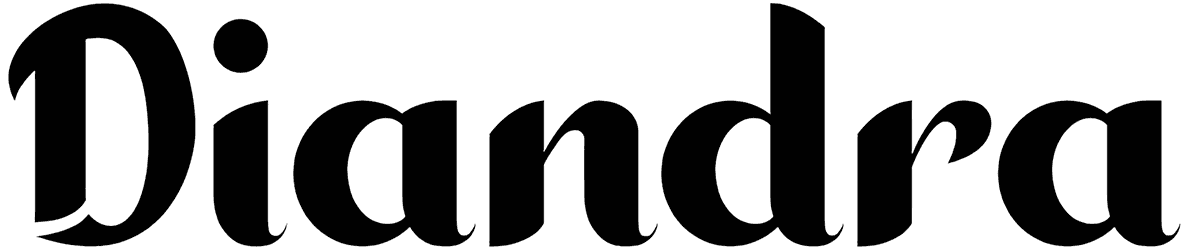
Diandra Font
Designed byIrfan Hidayat
Diandra is a magical fancy font that can be easily matched to an incredibly wide set of graphic purposes, such as movie posters, video game banners, digital brochures, logos, and flyers. This typeface comes with curved characters, so it has the real potential to add a harmonic touch combined with a sense of professionalism, momentum, and drama.